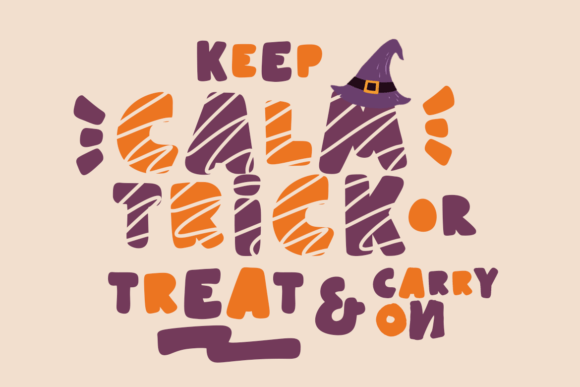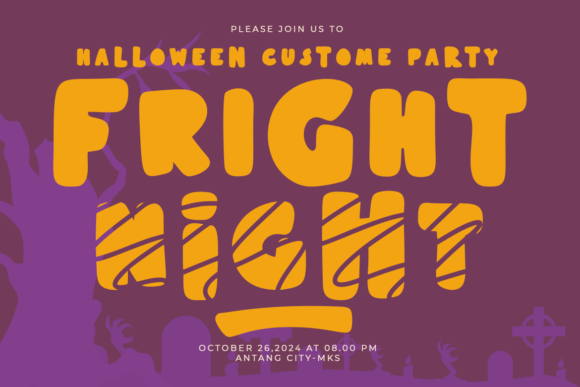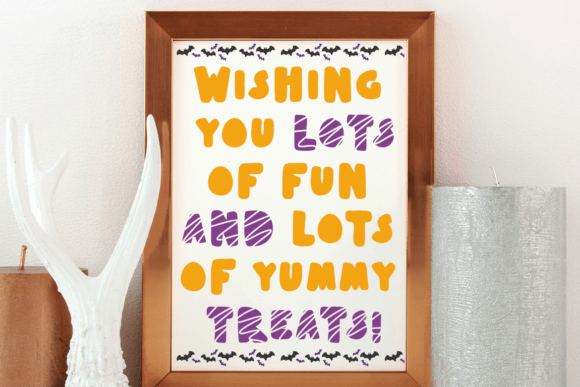
Introduction to Pumpkin Games Font
Pumpkin Games is an incredibly unique and interesting display font.
Whimsical and a bit spooky, this font will make each of your designs stand out .